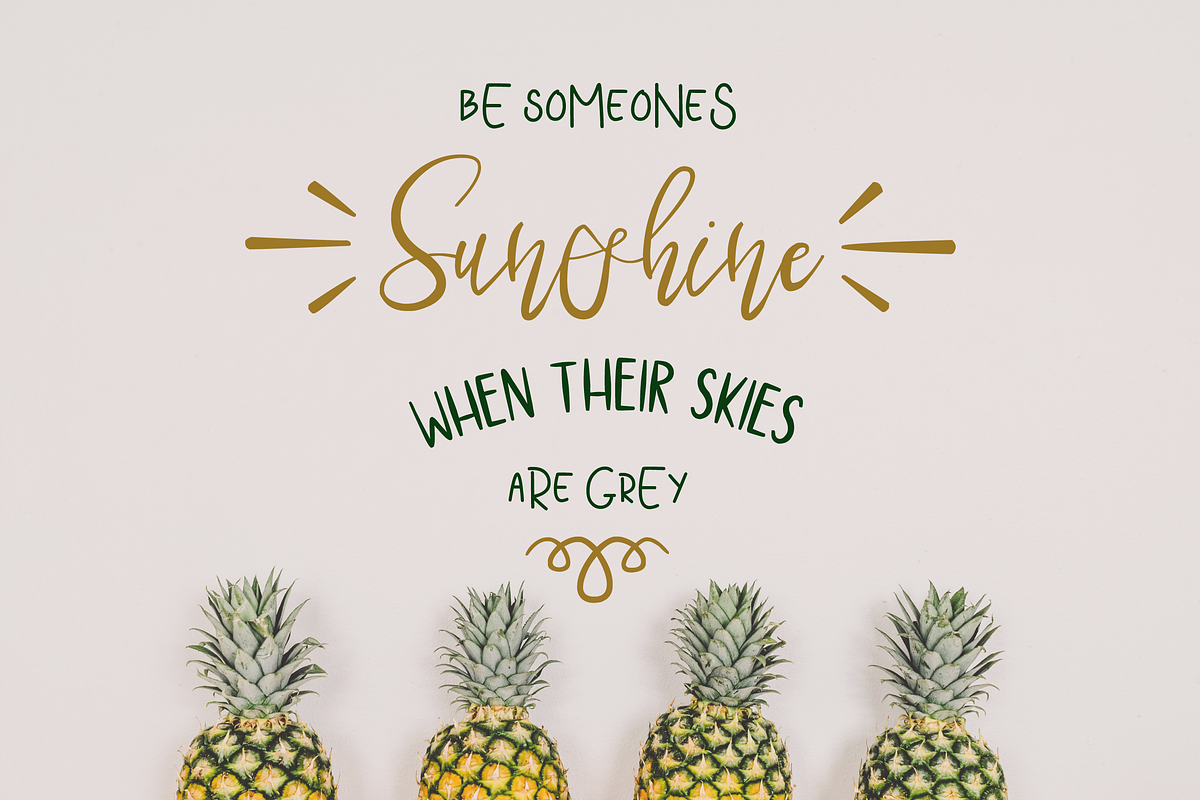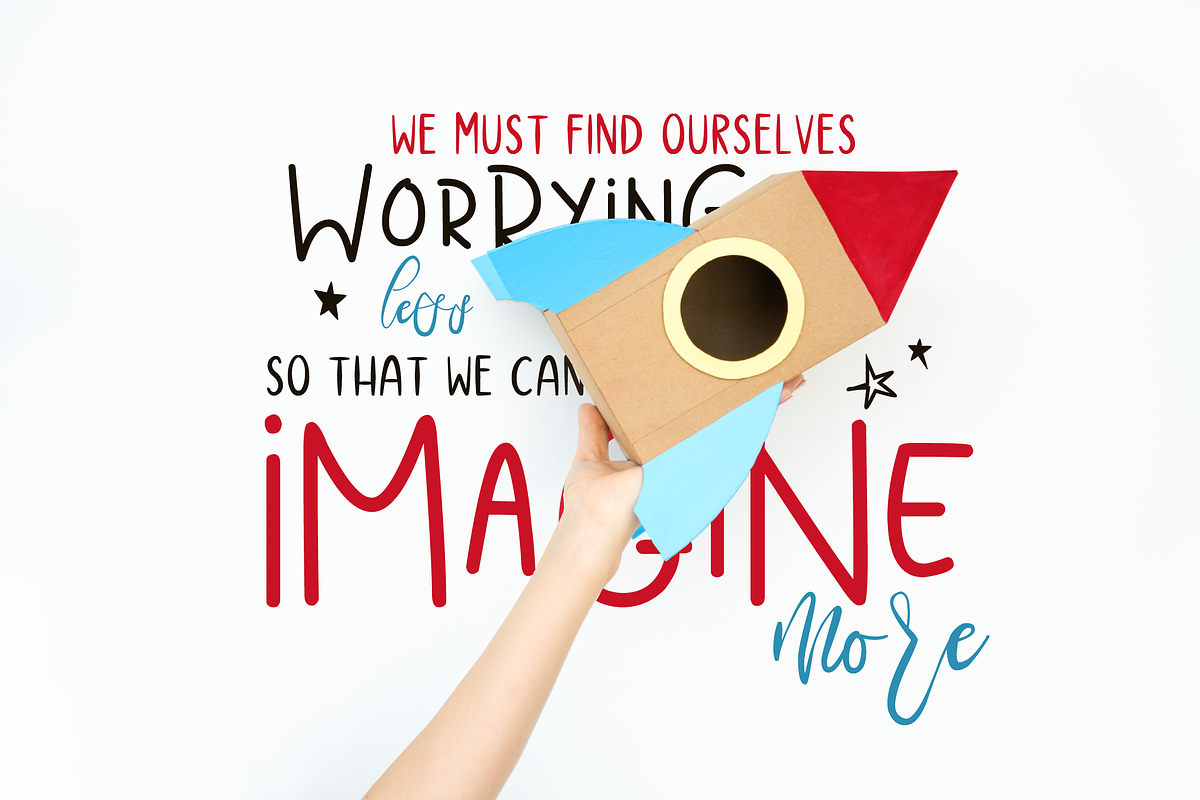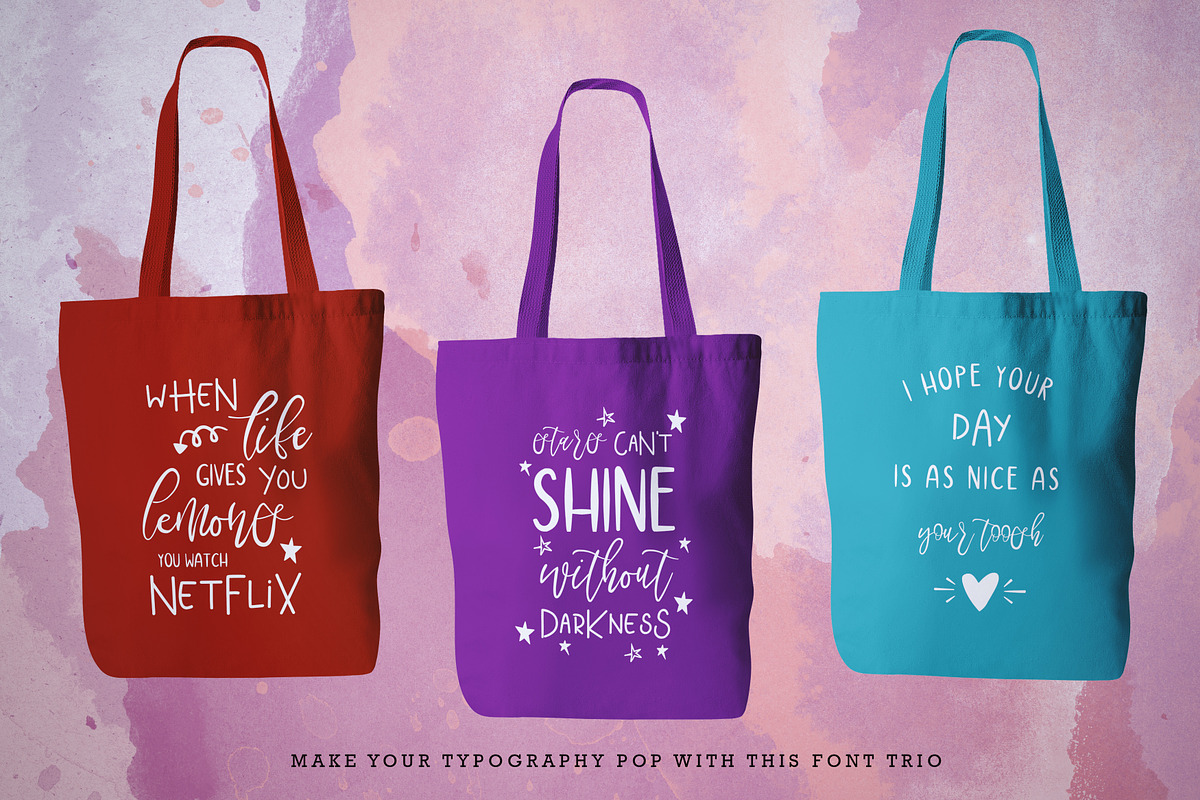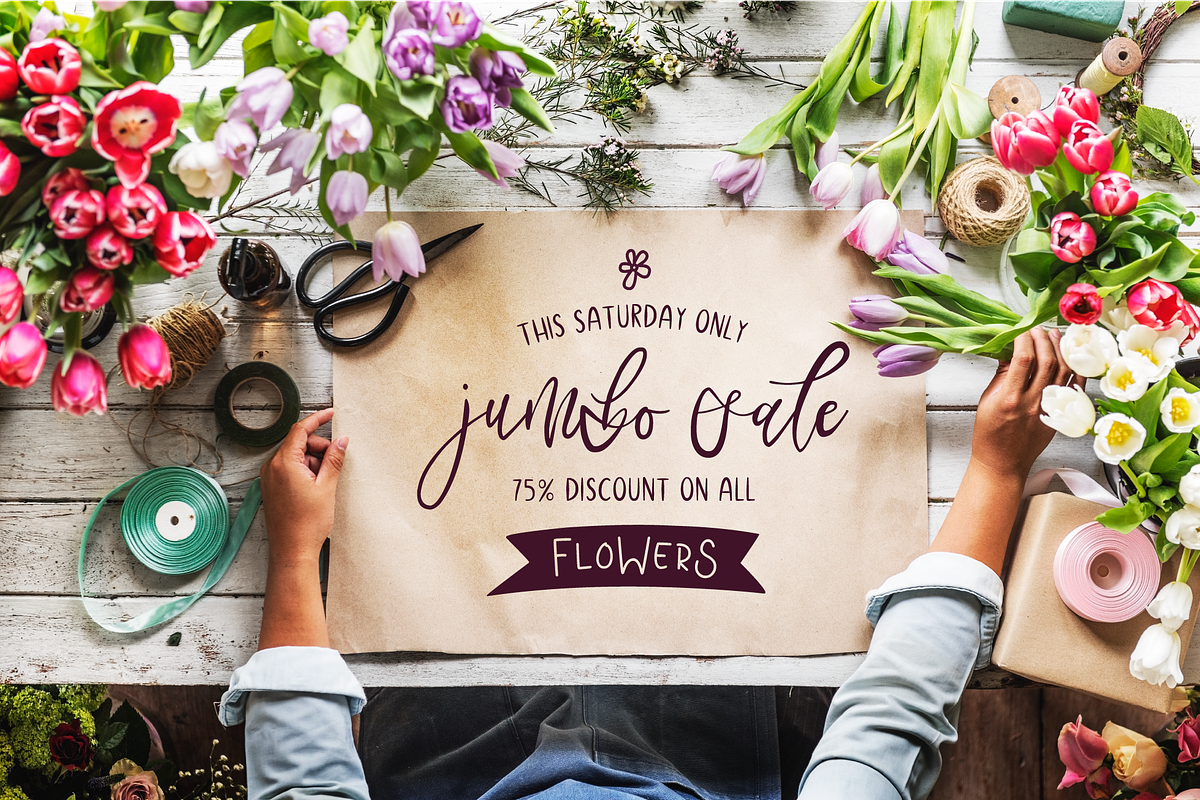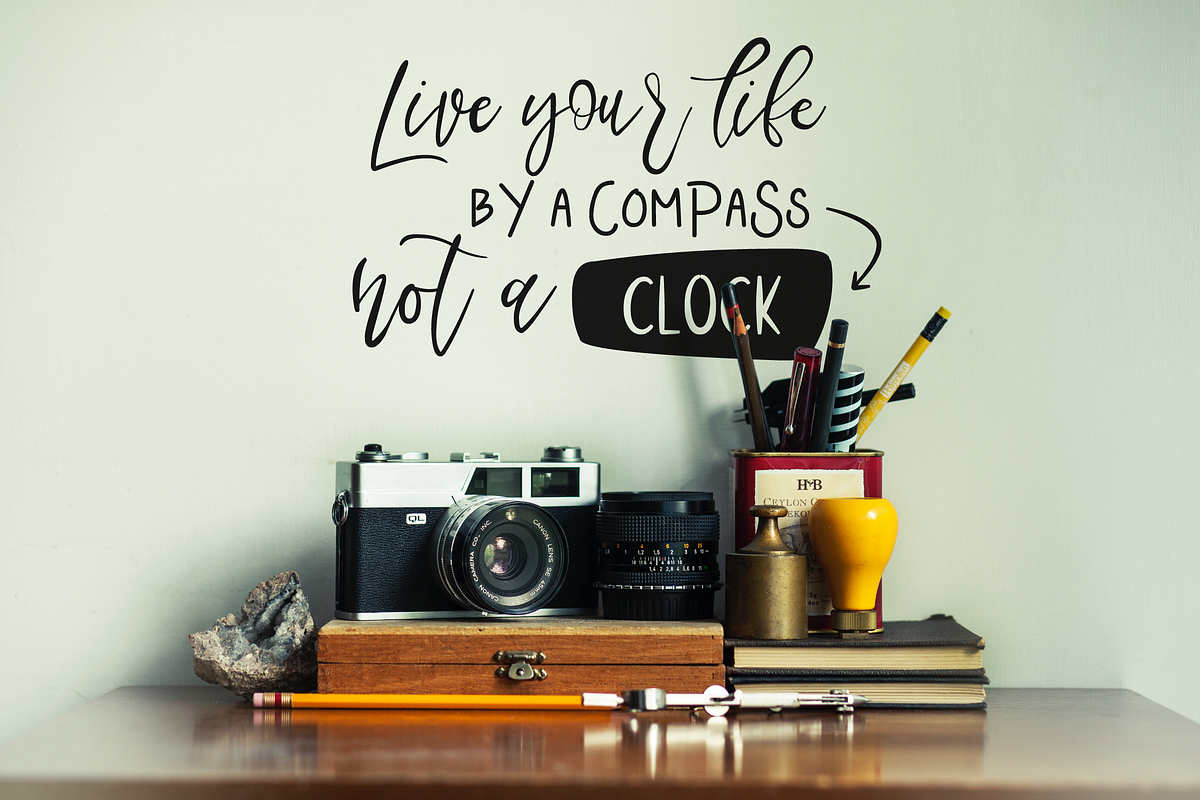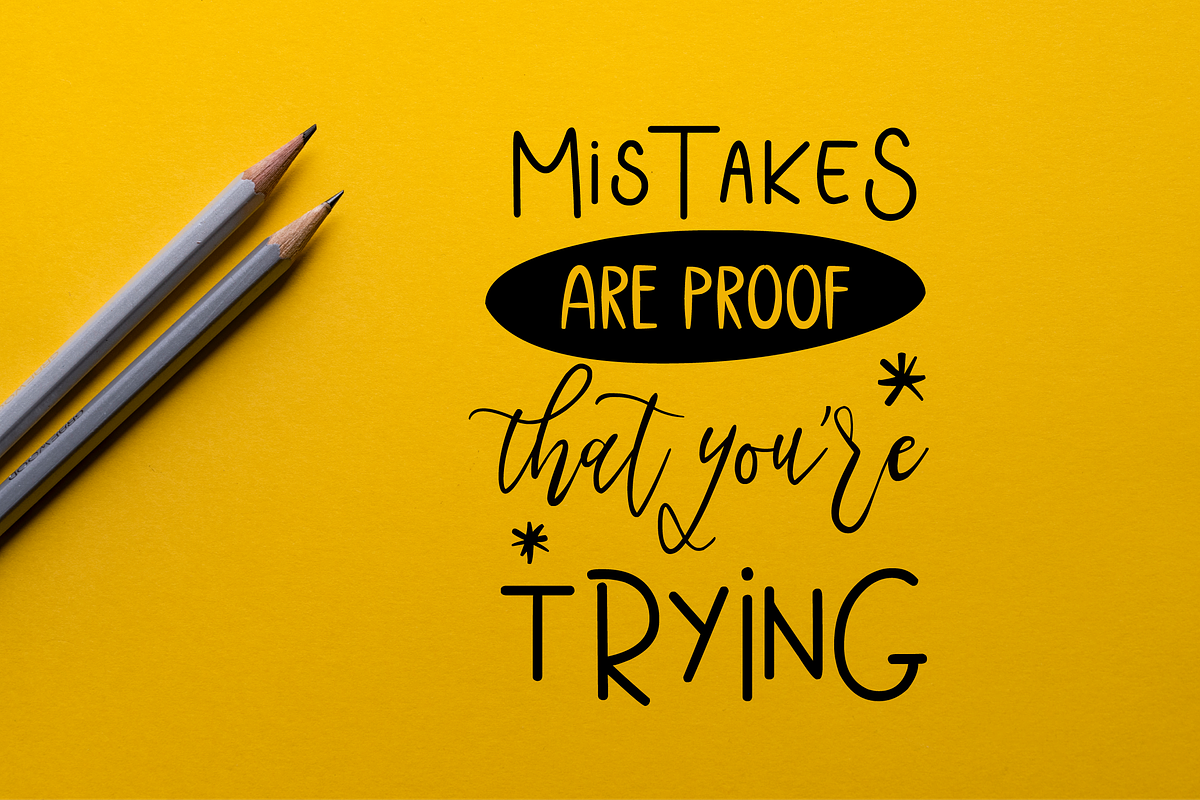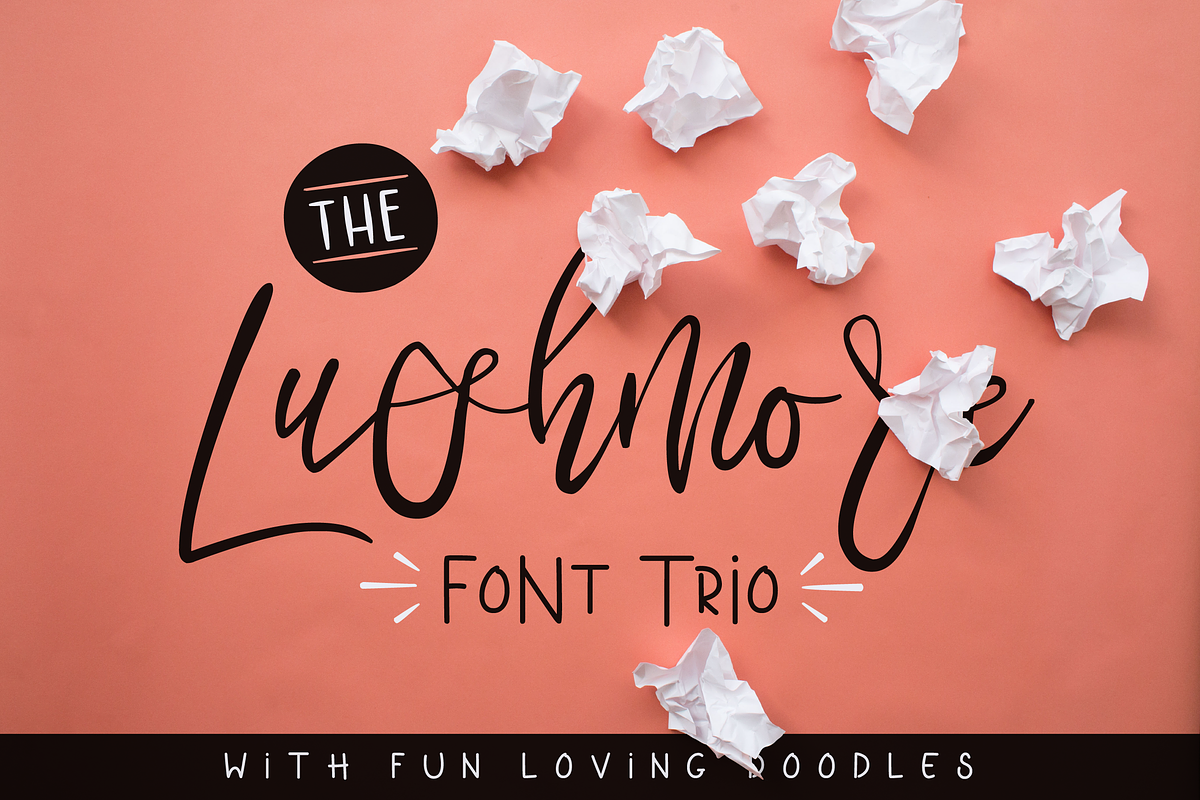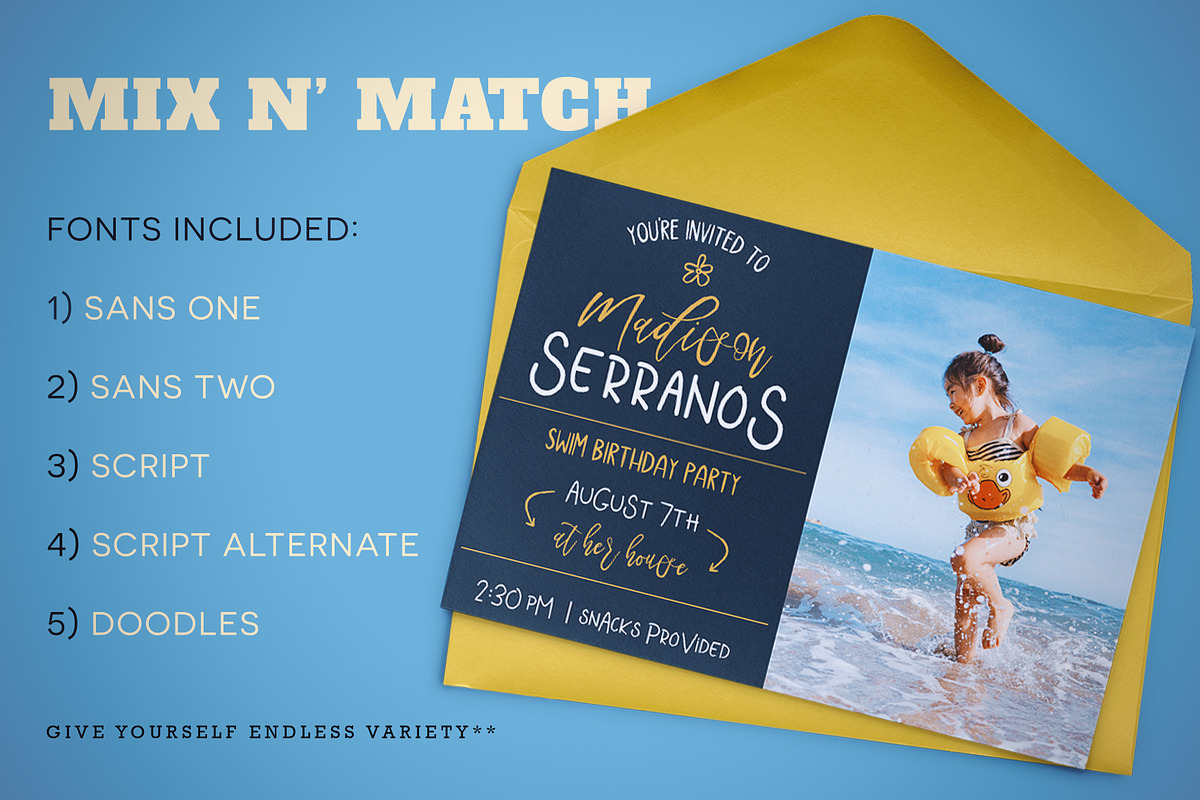
Lushmore Font Trio + Extras
Lushmore Font Trio + Extras by Flycatcher Design is a font selected for branding, posters, packaging, typography.
- Lushmore Script (A lovely script that will give your designs life)
- Lushmore Sans 1 (A bubbly sans that will give your designs character)
- Lushmore Sans 2 (A more straight-laced sans that will give your designs order)
- Lushmore Doodles (26 quirky yet handy sketches to give your designs some fun)
- Lushmore Script Alternate (26 bonus characters to switch things up with)
Why Lushmore Font Trio + Extras is worth a look
Lushmore Font Trio + Extras by Flycatcher Design fits naturally into Branding, posters, packaging, typography.